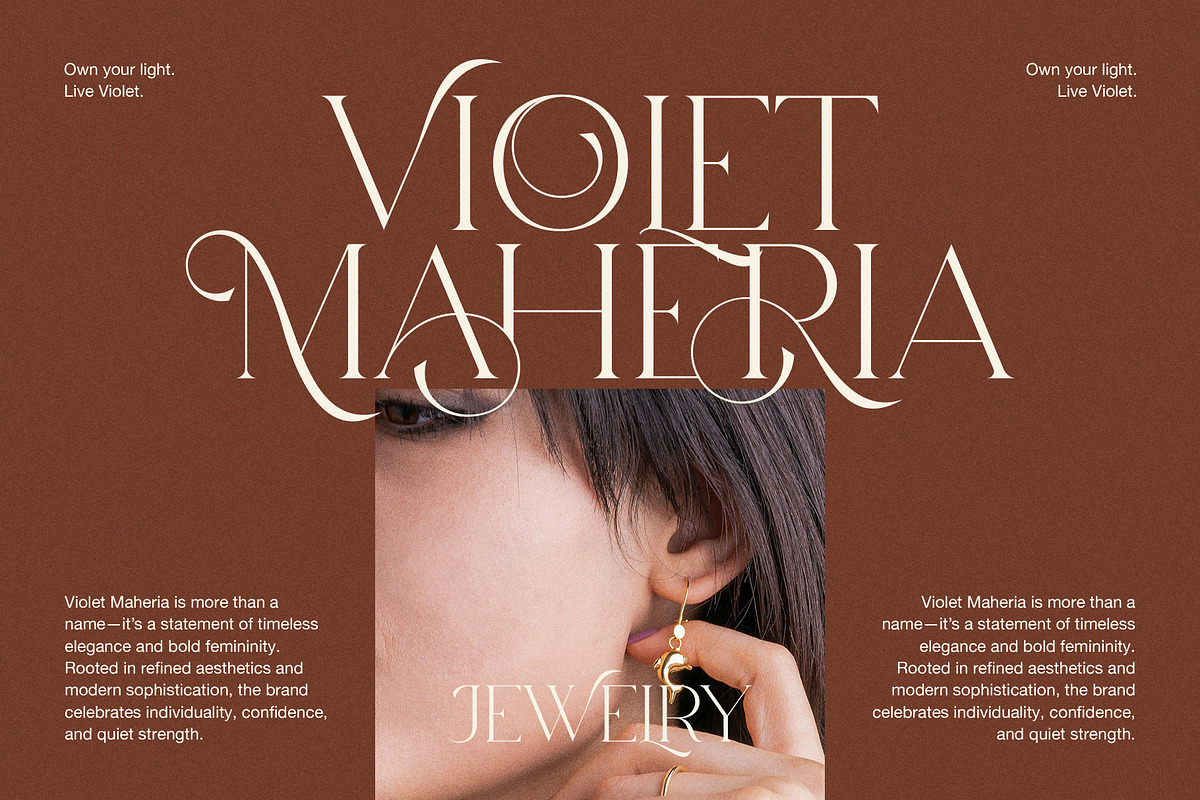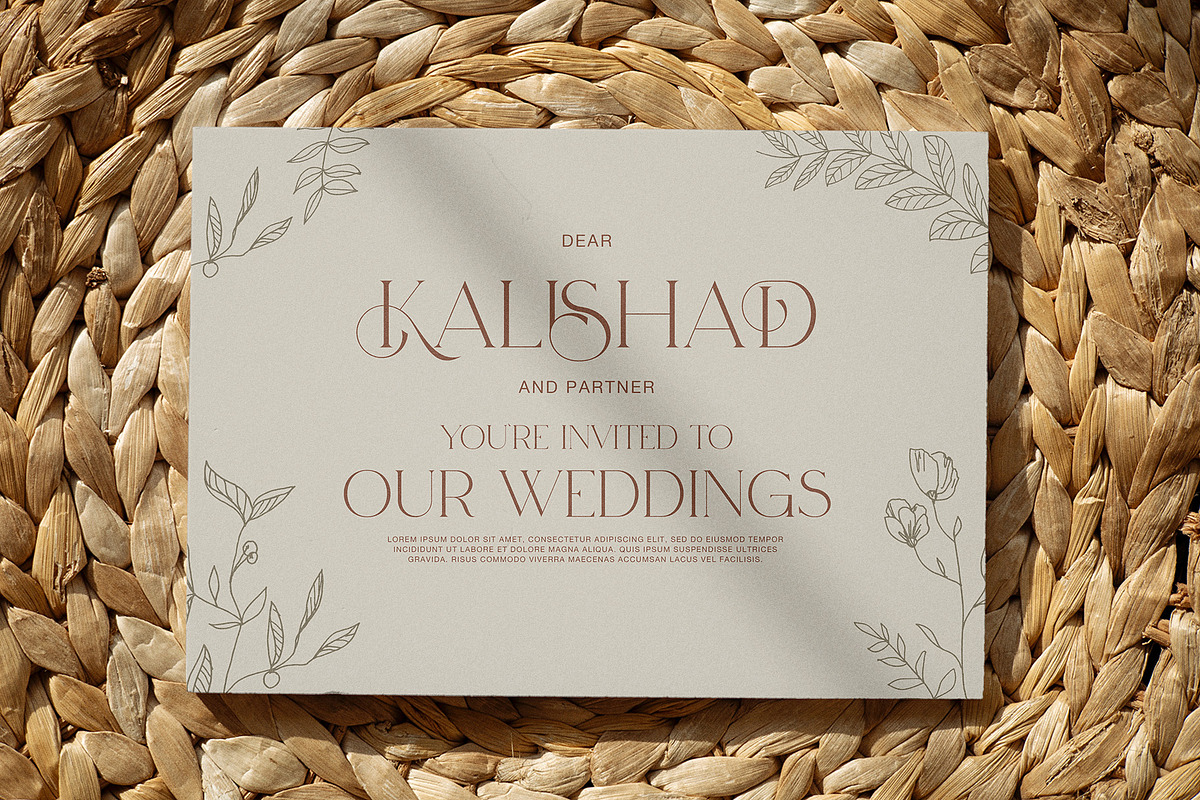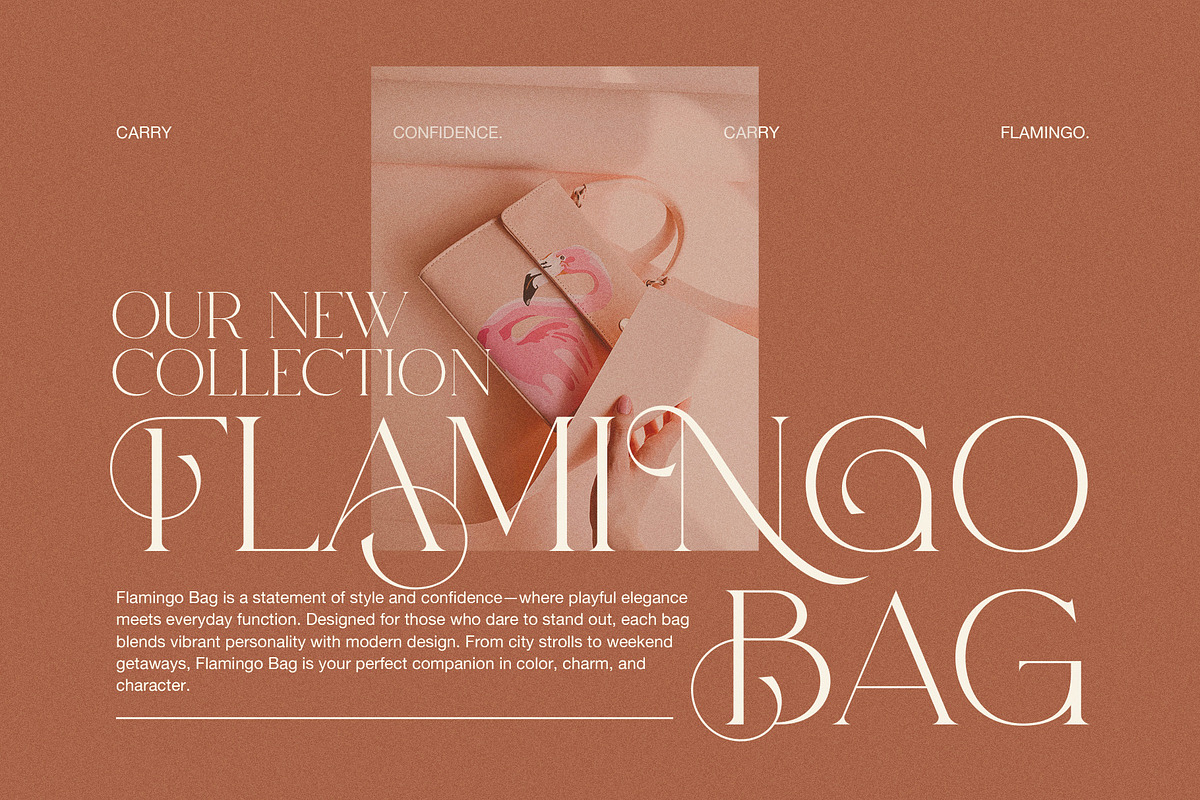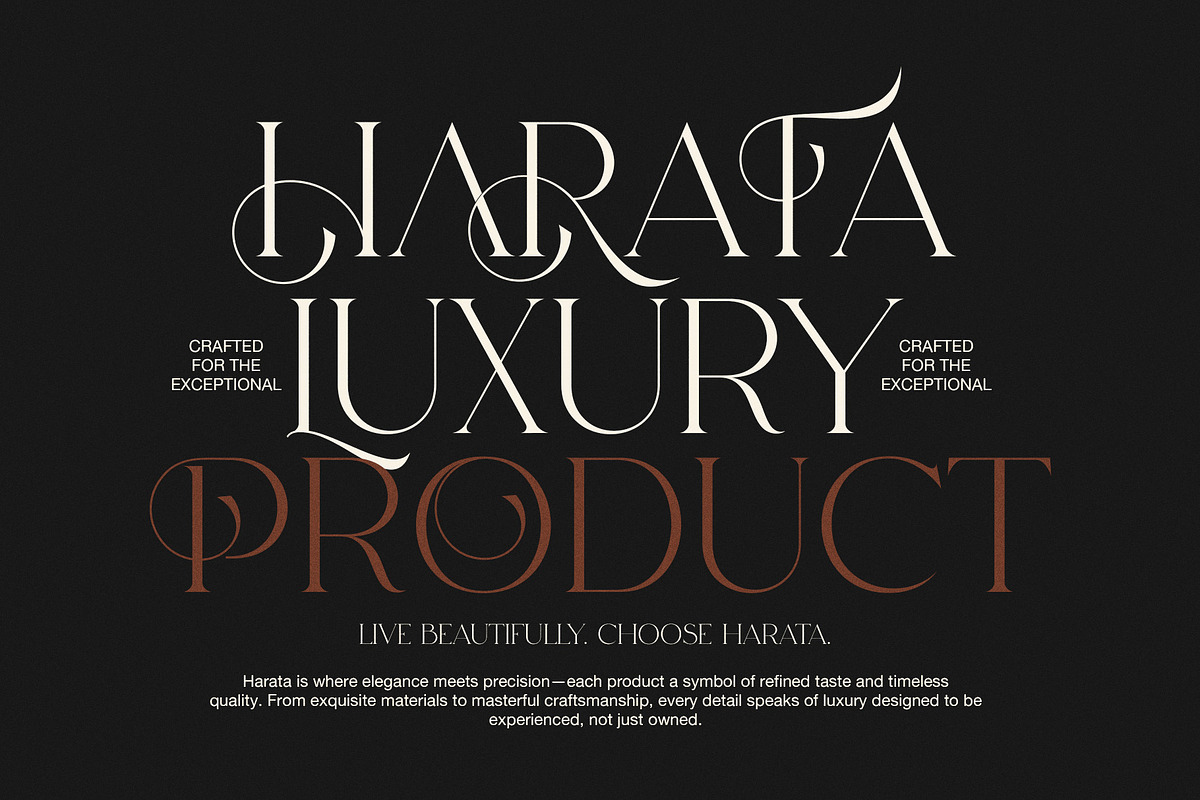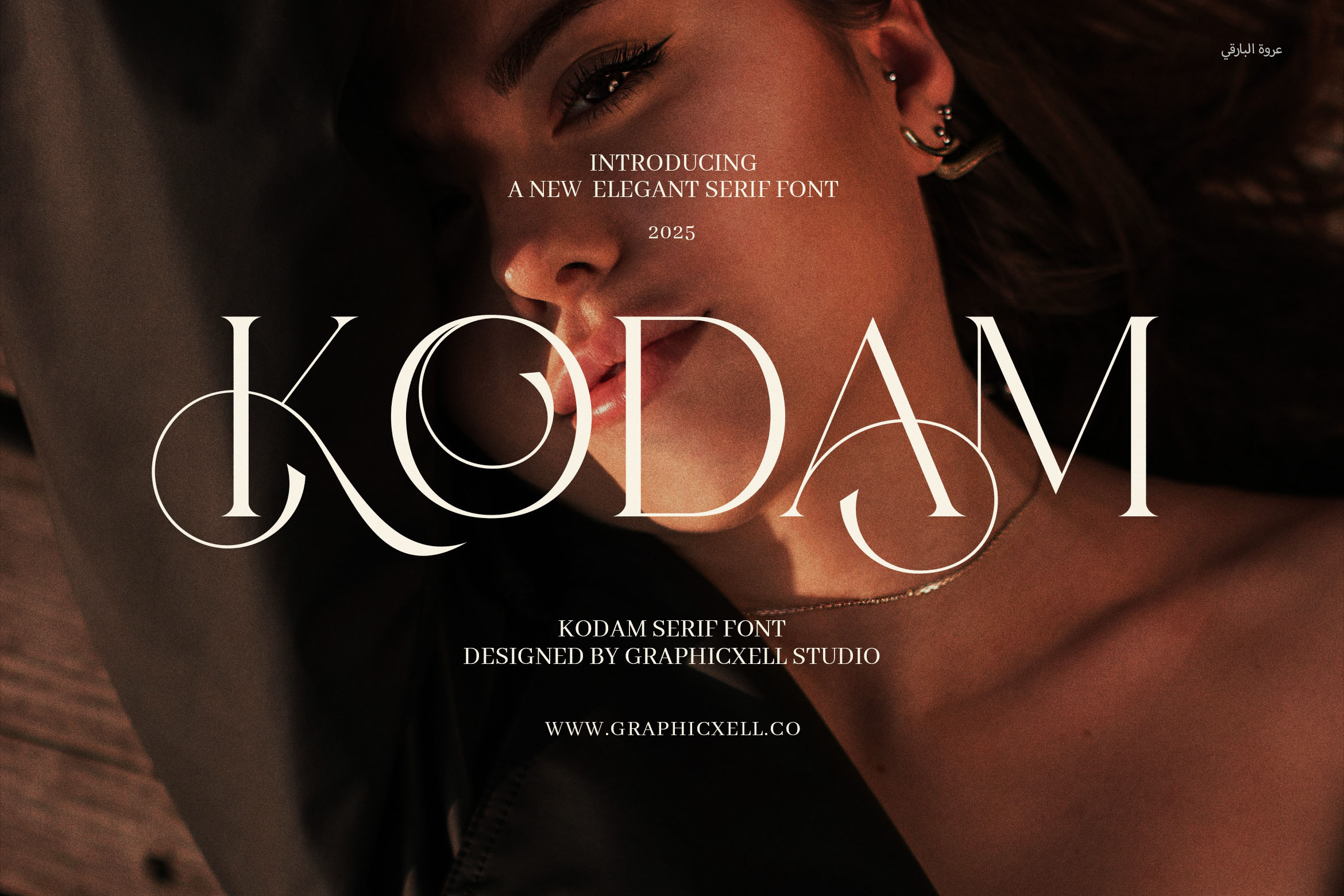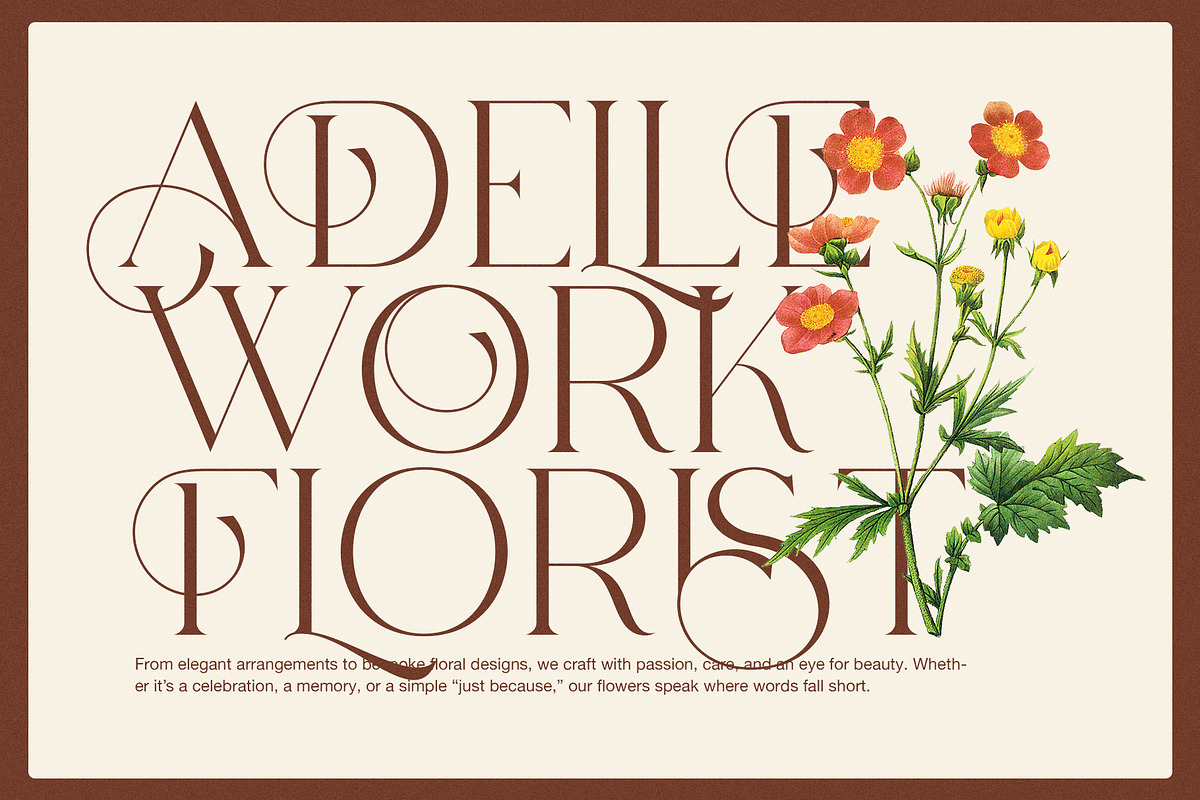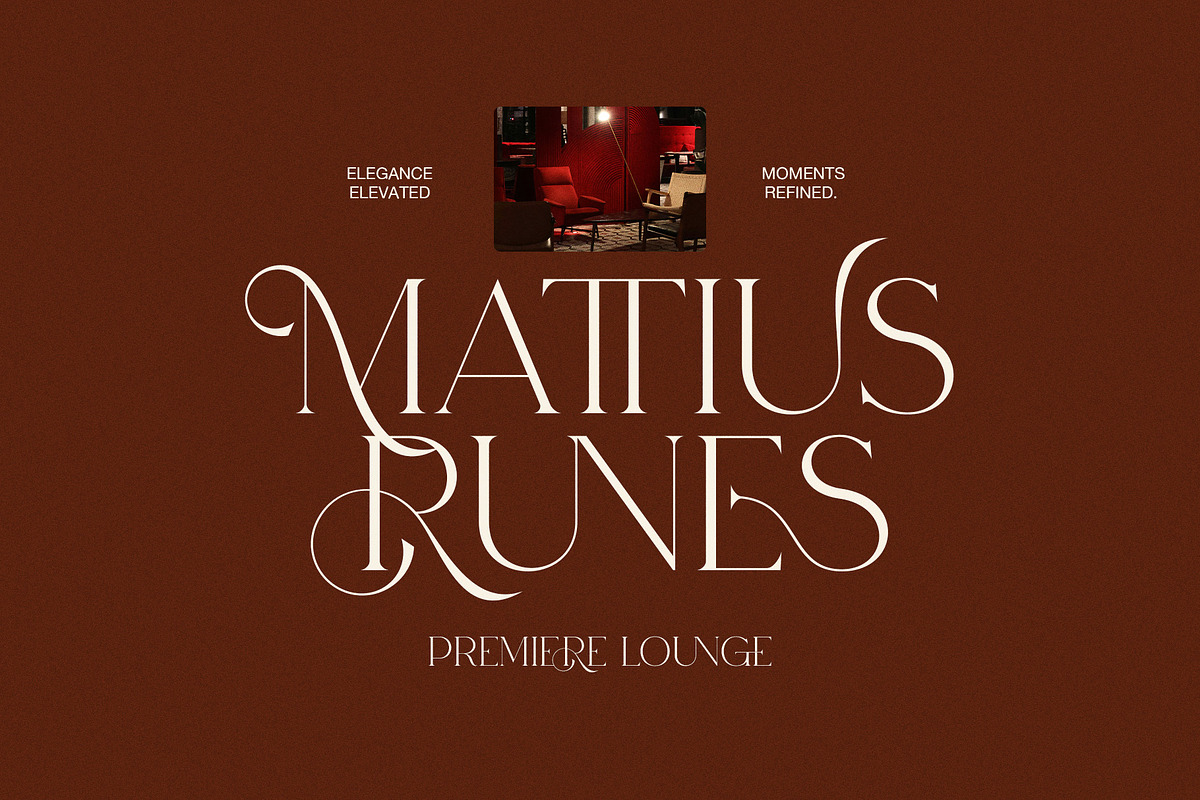
Kodam Stylish Serif Font
Introducing Kodam Stylish Serif, a modern serif typeface that exudes grace, creativity, and sophistication in every letter. Designed with refined curves and subtle contrasts, Kodam is a stylish serif font that brings a distinctive charm to your designs while maintaining high readability and versatility across both digital and print applications.
Crafted for modern branding and creative expression, Kodam strikes the perfect balance between classic typography and fresh, contemporary aesthetics. Its graceful serifs, well-balanced letterforms, and elegant proportions give it a high-end, luxurious feel—making it ideal for projects that require a strong visual presence with a soft, sophisticated touch.
Kodam isn’t just a typeface; it’s a design companion for visual storytellers. Whether you're designing a high-fashion brand, an upscale food label, or a minimalist portfolio website, Kodam offers the style and substance your project needs to stand out.
Key Features of Kodam Stylish Serif:
Elegant serif style with modern structural details
Smooth curves and clean lines for a polished finish
Uppercase & lowercase letters, numerals, punctuation, and multilingual support
Suitable for logos, branding, packaging, websites, editorials, and more
Designed to look flawless in both large headings and refined body text
Where Style Meets Function
Kodam is made for designers who value both beauty and functionality. Each letter is designed with precise contrast and spacing, giving the font a clean and readable appearance while preserving its stylish flair. Whether used for bold titles or understated body copy, Kodam delivers consistency and elegance throughout your layout.
Its strong aesthetic appeal makes it a favorite for high-end design work—perfect for fashion magazines, boutique branding, cosmetics, editorial spreads, elegant signage, and lifestyle blogs. Kodam adds a touch of artistic sophistication that makes your message not only seen but remembered.
Modern logo design and luxury branding
Editorial design and magazine layouts
Beauty, fashion, and lifestyle content
Product packaging for boutique and artisanal items
Wedding invitations and stationery
High-end web design and promotional materials
Kodam's stylish nature and distinctive character make it a go-to font for creatives seeking a serif with a modern edge. Its versatility ensures that whether you're designing for print or screen, your content will look refined, professional, and visually captivating.
This is the kind of typeface that speaks to the heart of contemporary elegance. It doesn’t shout—it speaks with poise. Clean yet charismatic, bold yet refined—Kodam Stylish Serif is a font that brings elegance and personality to every design it touches.
Elevate your next project with the unmistakable charm of Kodam. It's not just a font—it's the visual language of modern elegance.